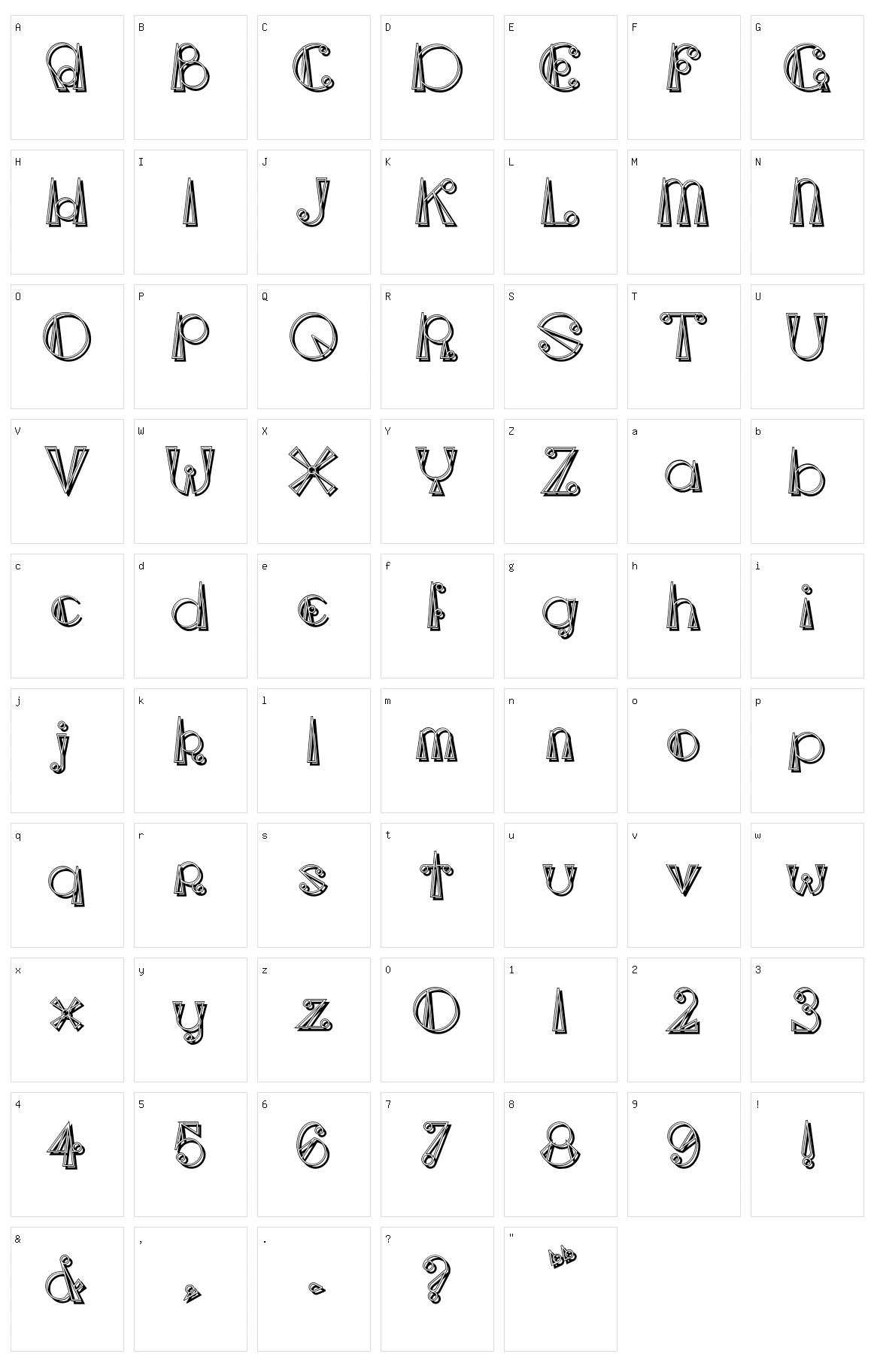
The free font TriangleETcircle Shadow is carefully designed by ClaudeP, showcasing a thoughtful balance of creativity and usability and falls under the Decorative font style. When you download the ZIP file, it contains only 54.05 KB of font files, making it lightweight and quick to download. Please review the license details below to understand permitted usage and distribution rights. If license information is not available, we recommend using this font for personal projects only or contacting the author directly for commercial usage permissions.